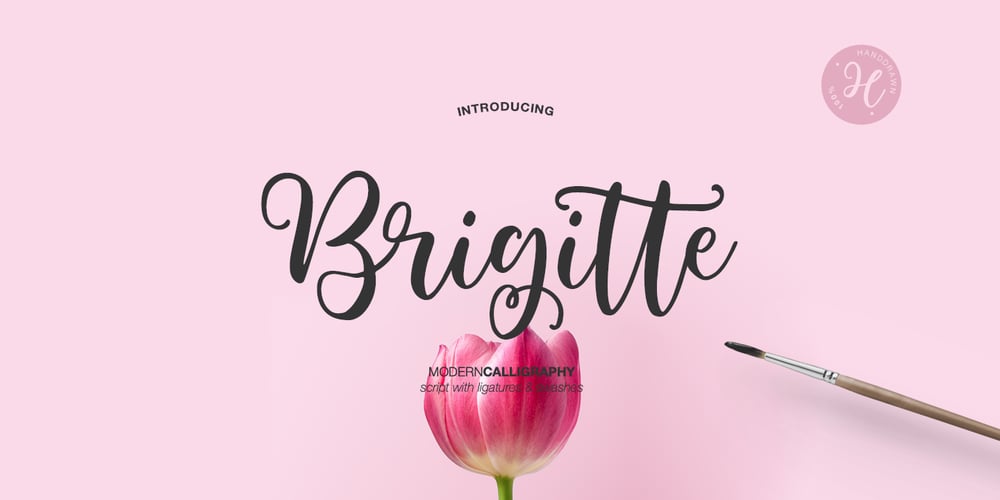
Brigitte
Brigitte font
Brigitte Font Family was designed by Dmitrii Chirkov and published by Supfonts. Brigitte contains 1 styles and family package options. This font is a classic modern calligraphy featuring a floating baseline, ligatures, swashes and multilingual support. Brigitte will look beautiful on holiday invitations, wedding invites and stationery, logos, and more. Test it out below to see how it could look for your next project! Check out my blogs: https://www.instagram.com/zloillev https://www.pinterest.com/dmitriychirkov7